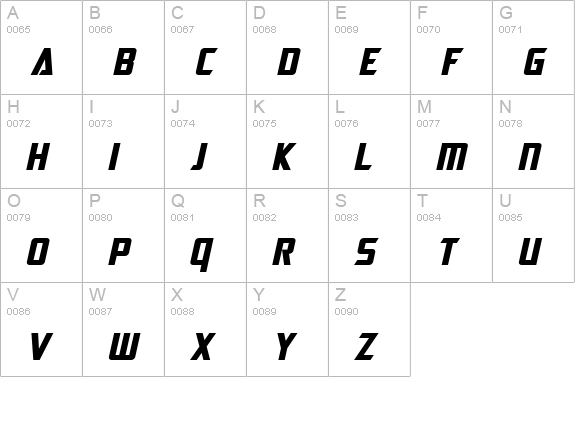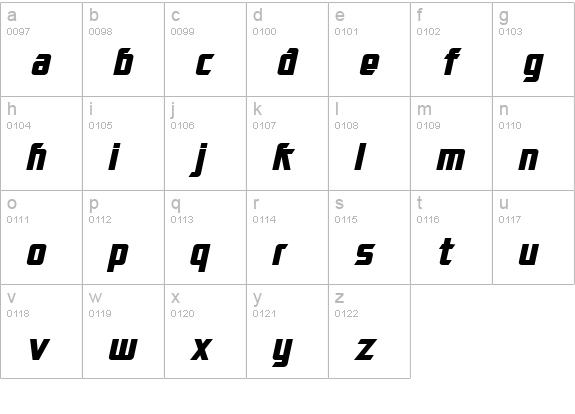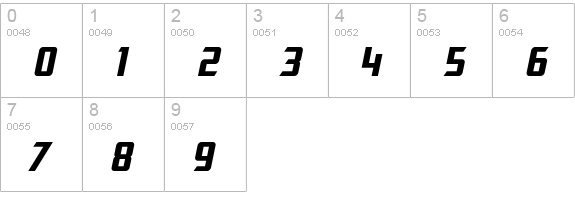
SF Electrotome Bold Oblique Font Details
SF Electrotome Bold Oblique is a strong, high-contrast, italic variant in the SF typeface family \xE2\x80\x94 well suited to headlines, attention-grabbing titles, and strong calls-to-action.
SF Electrotome Bold Oblique font is a powerful and striking typeface that is sure to make a bold statement in any design project. With its futuristic and edgy aesthetic, this font is perfect for creating eye-catching headlines, logos, posters, and more. The bold and slanted letterforms of SF Electrotome Bold Oblique exude a sense of energy and dynamism, giving your designs a modern and high-tech look. Whether you are designing for a science fiction movie, a tech startup, or a cutting-edge brand, this font will surely captivate your audience's attention. Not only does SF Electrotome Bold Oblique offer an impressive visual impact, but it is also highly legible, making it suitable for both print and digital applications. Its distinct and unique character shapes ensure that your message will stand out from the crowd and leave a lasting impression. One of the best things about SF Electrotome Bold Oblique font is that it is freely available to download at FontsMarket.com. This means that you can get your hands on this exceptional font without any cost, making it a valuable asset for designers on a budget or those looking to experiment with new typography styles. So, if you are looking to add a touch of boldness and modernity to your designs, look no further than SF Electrotome Bold Oblique font. Download it for free at FontsMarket.com and let your creativity shine with this exceptional typeface.